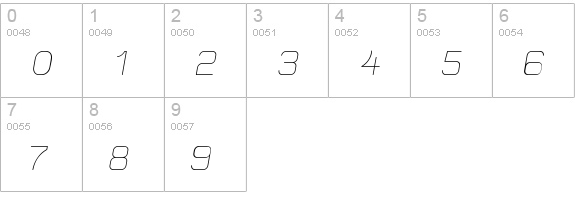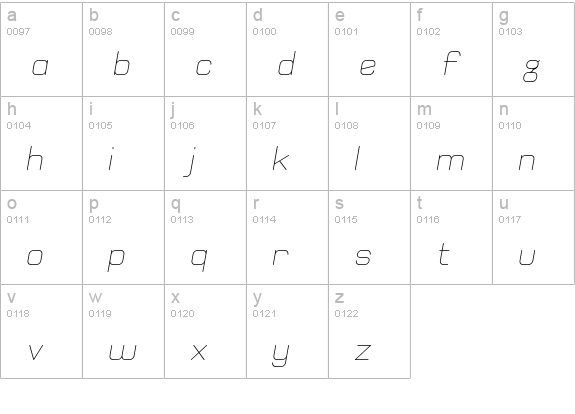
Elgethy Est font offers a sleek and modern design that is perfect for a wide range of projects. With its elegant curves and stylish appearance, this font is sure to catch the eye and make a statement. Whether you're designing a logo, creating a website, or working on a branding project, Elgethy Est font is a versatile choice that will elevate your work to the next level. The best part is that Elgethy Est font is completely free to download at FontsMarket.com. You can easily access this beautiful font and use it in your projects without any cost. Take advantage of this opportunity to add a touch of sophistication to your designs with Elgethy Est font. Download it today and let your creativity shine!